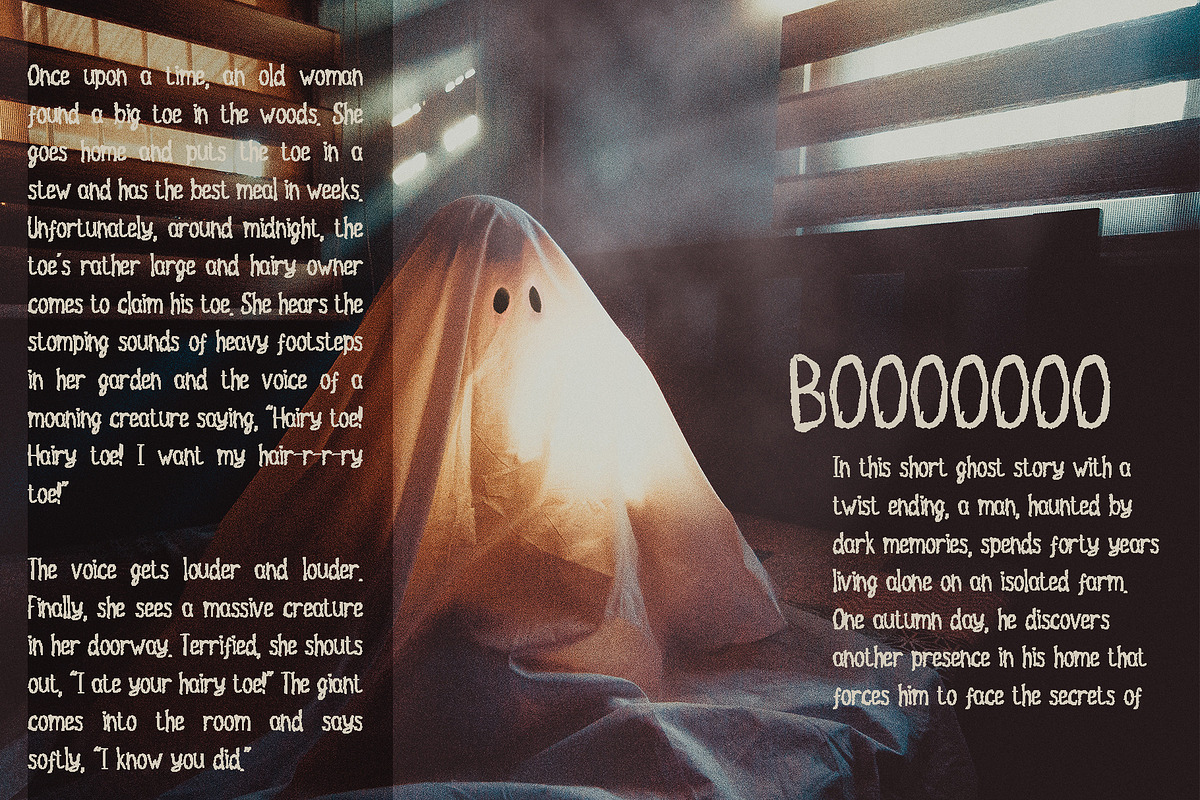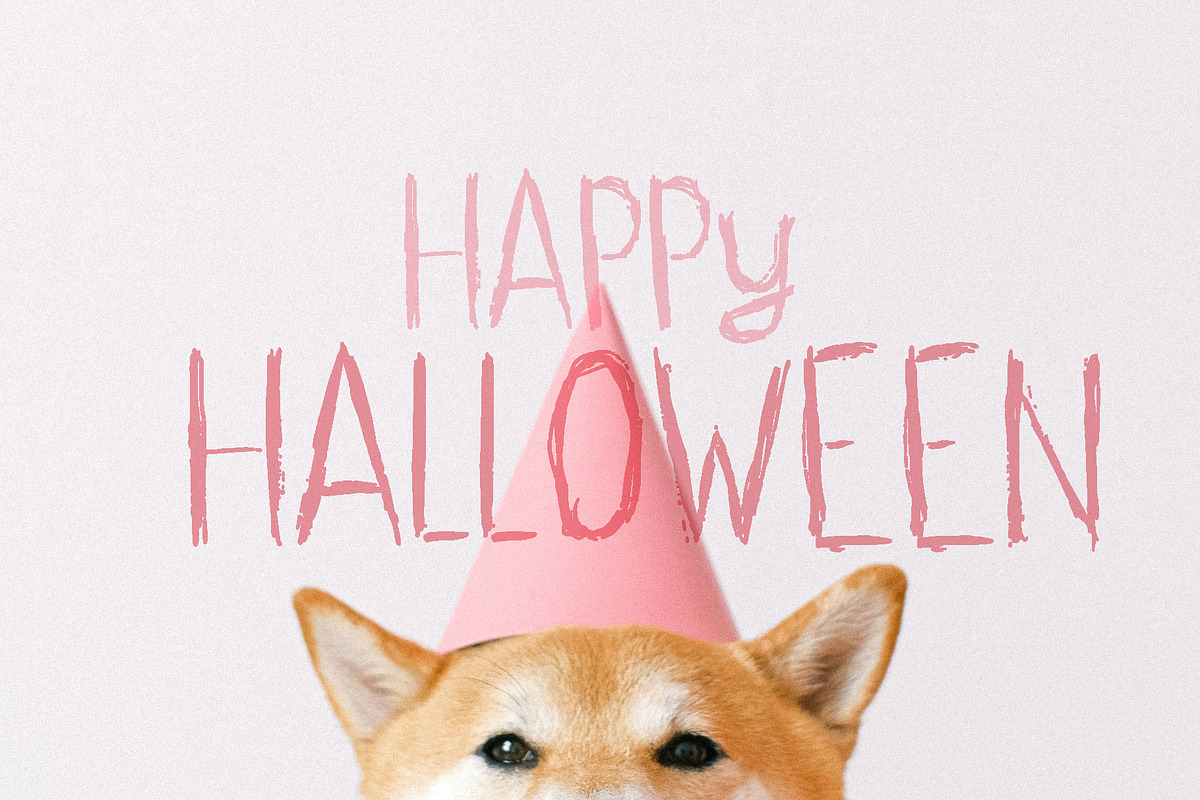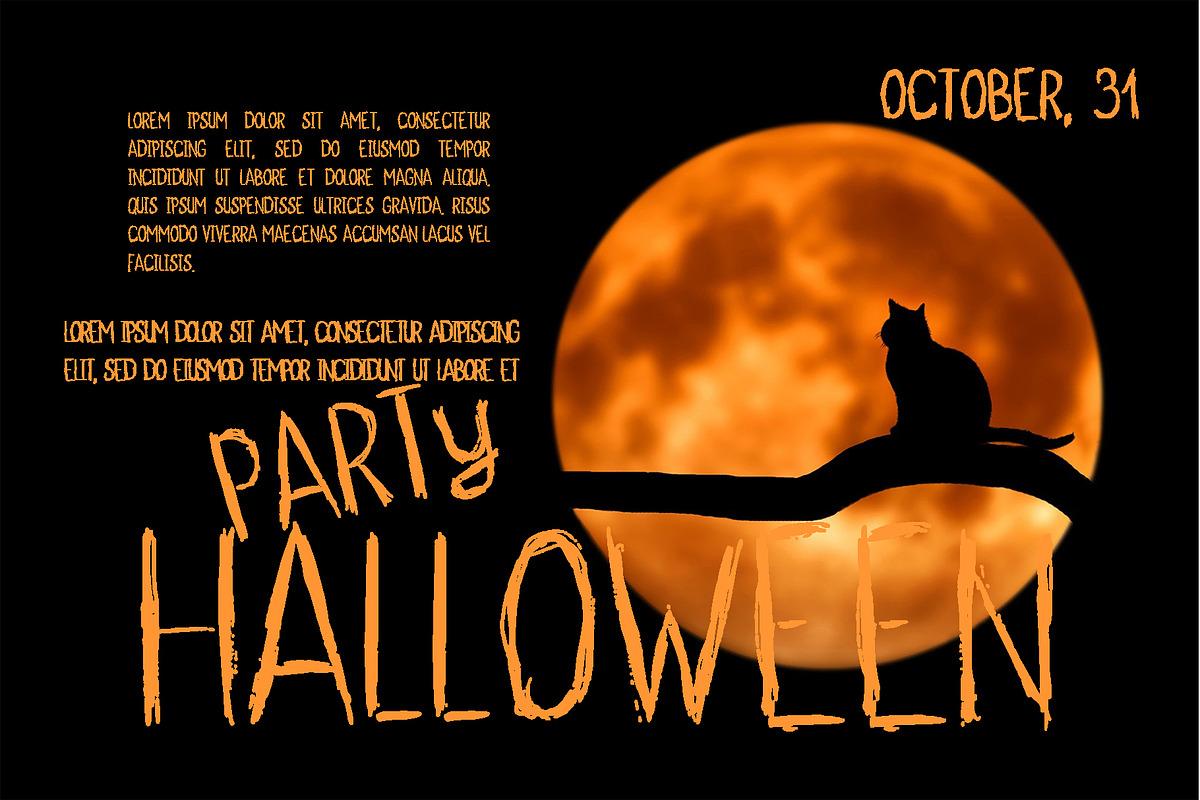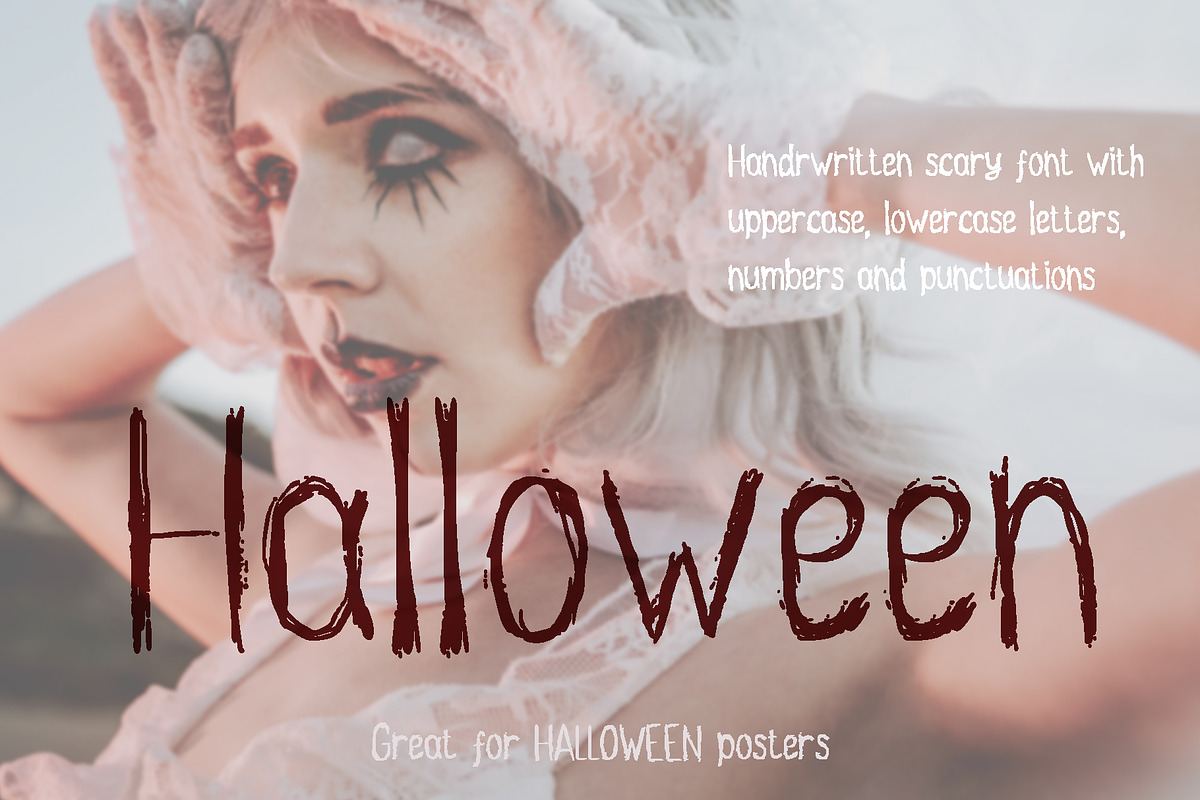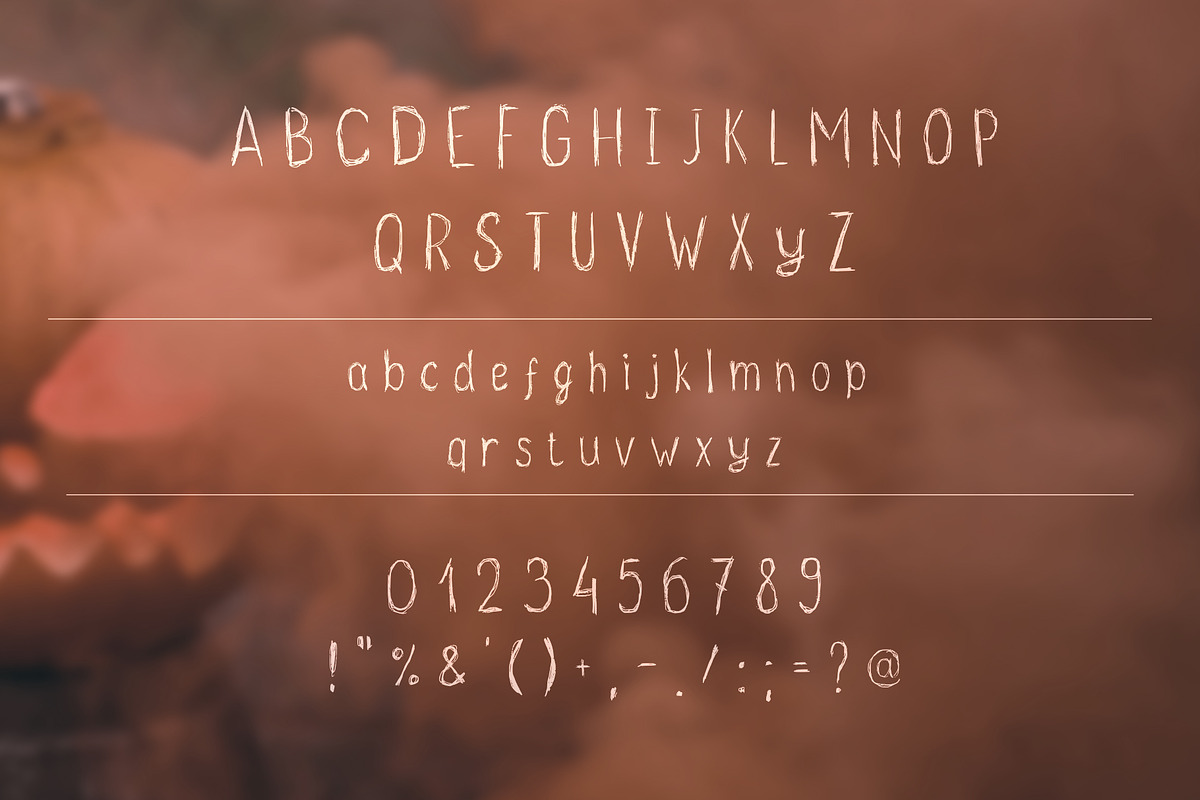
Halloween. Handwritten font
Halloween is a script handwriting font. It is great for Halloween text messages, posters or etc. Font including all Uppercase and lowercase letters, numbers and punctuations. You can see all symbols at second slide.